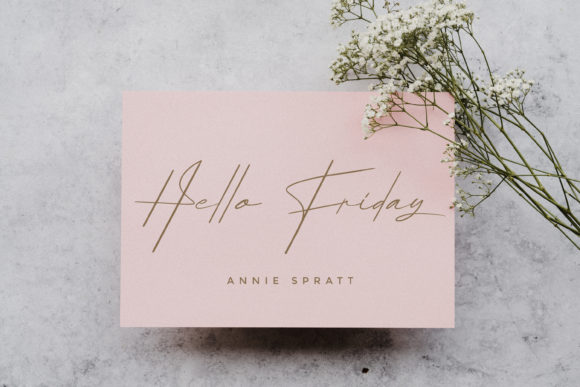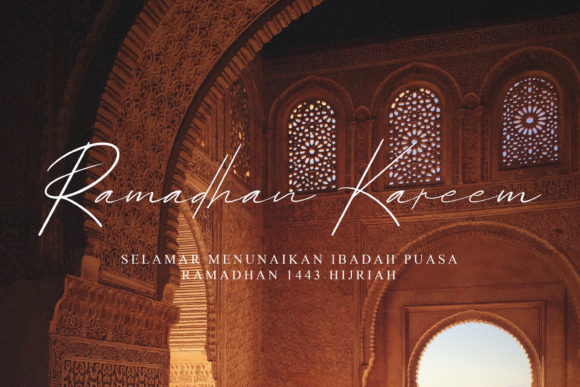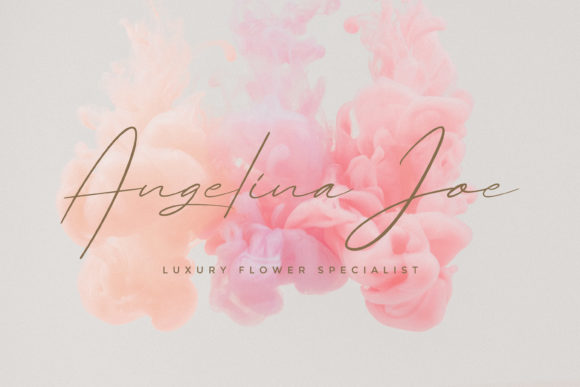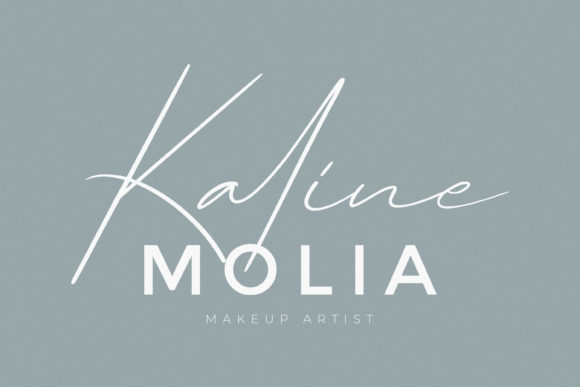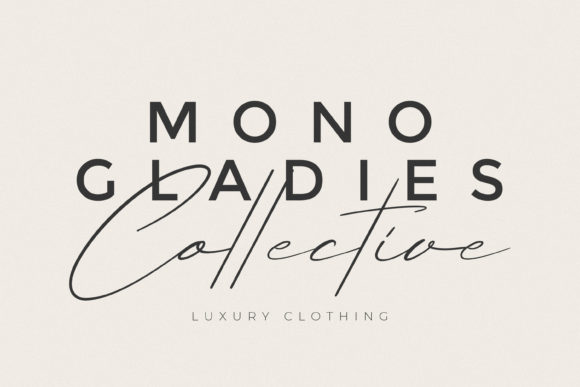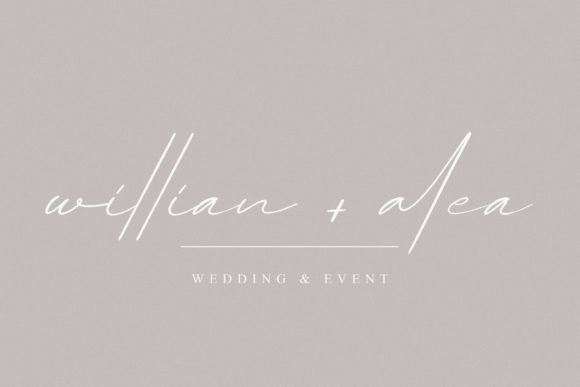
Introduction to Pantai Bali Font Font
Fonts play a crucial role in design, and the Pantai Bali Font font is a typeface that brings both character and versatility to any project. Whether you’re working on a branding project, a website, or a print design, the Pantai Bali Font font offers a unique style that can elevate your work.
Pantai Bali is a stylish and fashionable script font.
It has a clean, thin and smooth vibe and it will be a hit for any design that you want to add it to .
Key Features of Pantai Bali Font Font
Why Choose Pantai Bali Font Font?
The Pantai Bali Font font is more than just a typeface – it’s a design tool that helps you communicate your message with style and clarity. Its unique character set and versatile design make it suitable for a wide range of applications, from elegant invitations to bold headlines.
With its carefully crafted letterforms and balanced proportions, the Pantai Bali Font font ensures readability and visual appeal across all mediums.
What makes Pantai Bali Font font special?
The Pantai Bali Font font stands out with its unique design, exceptional readability, and versatility across various design applications.